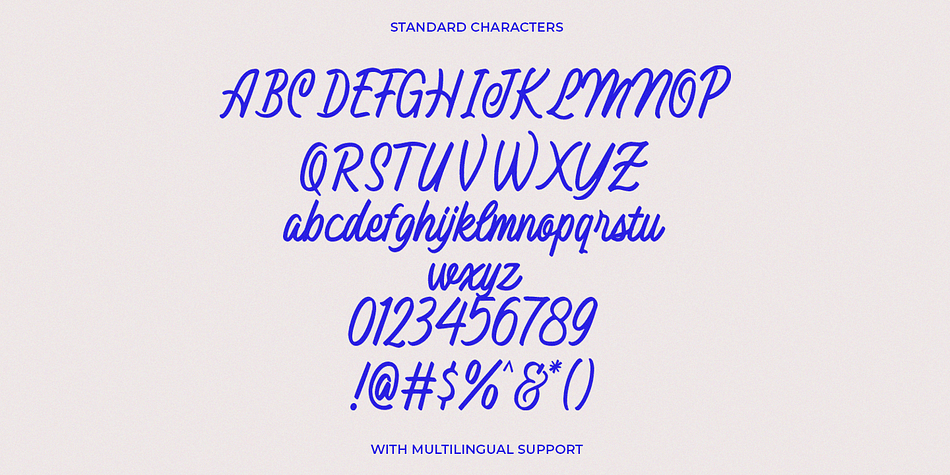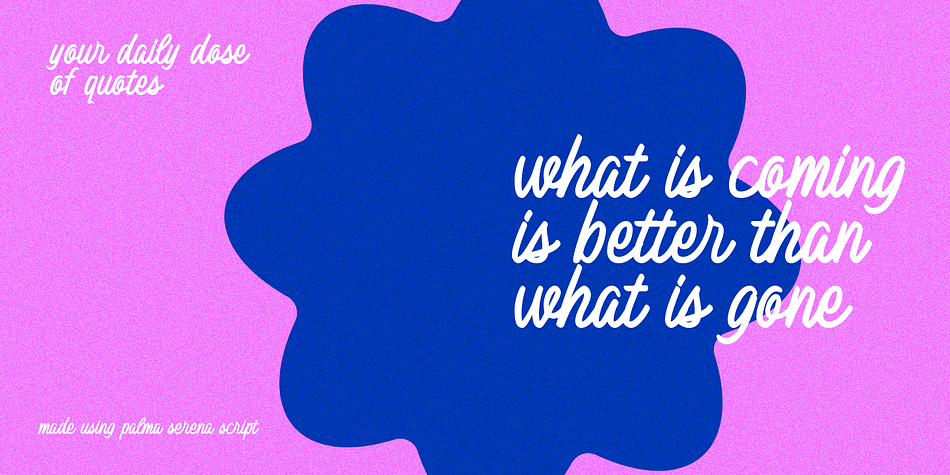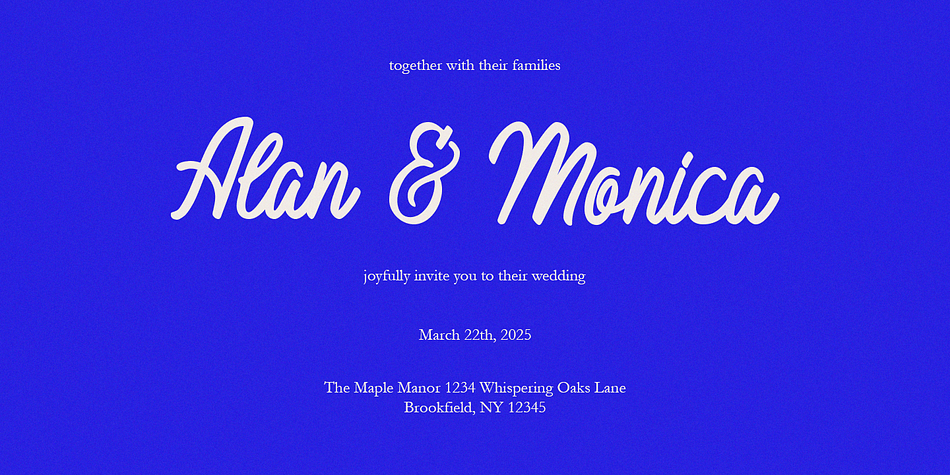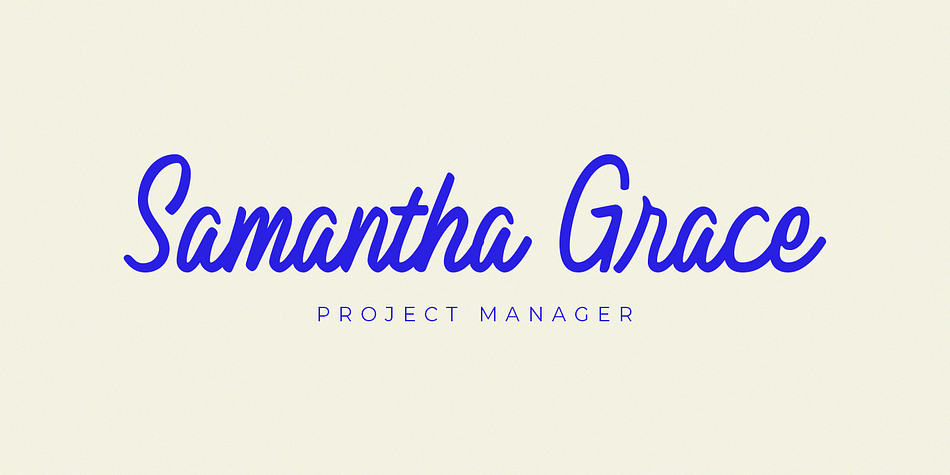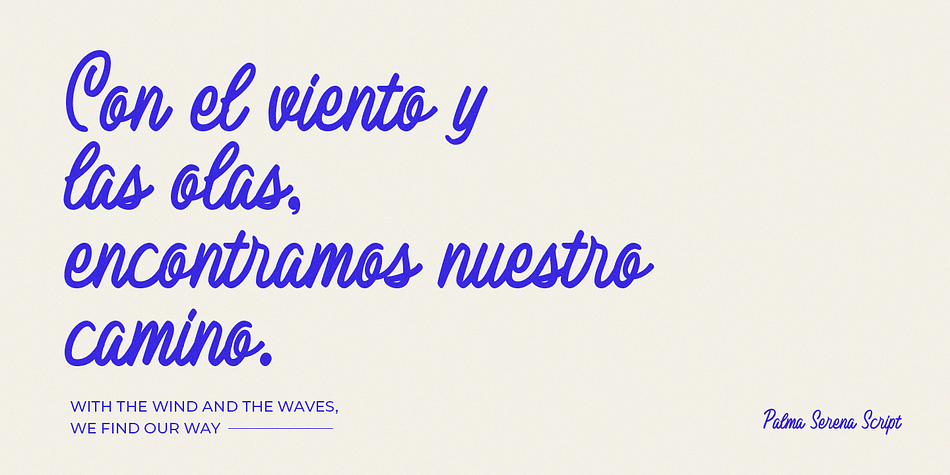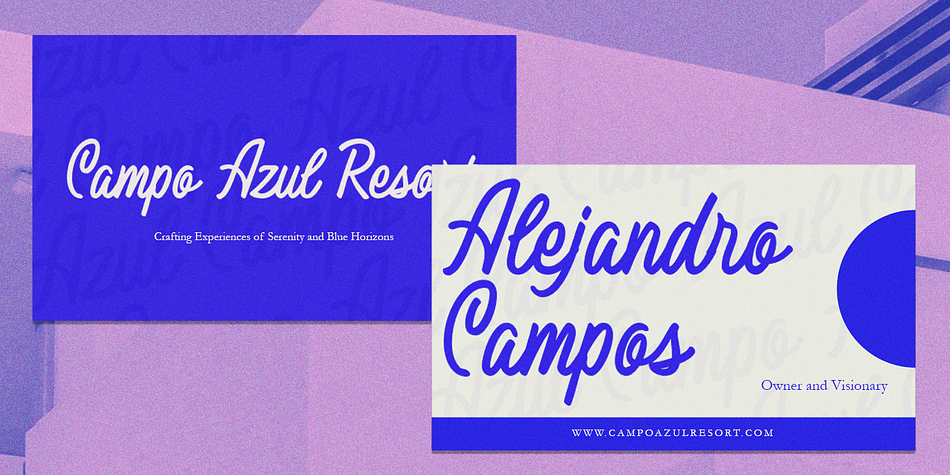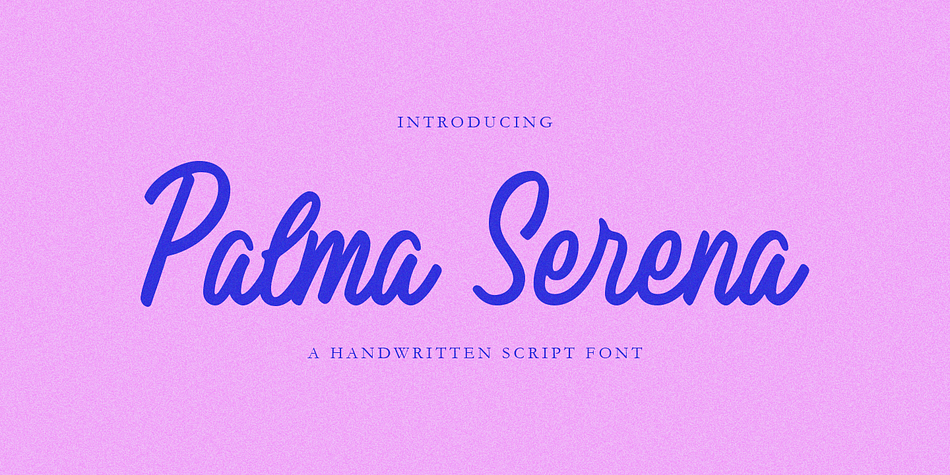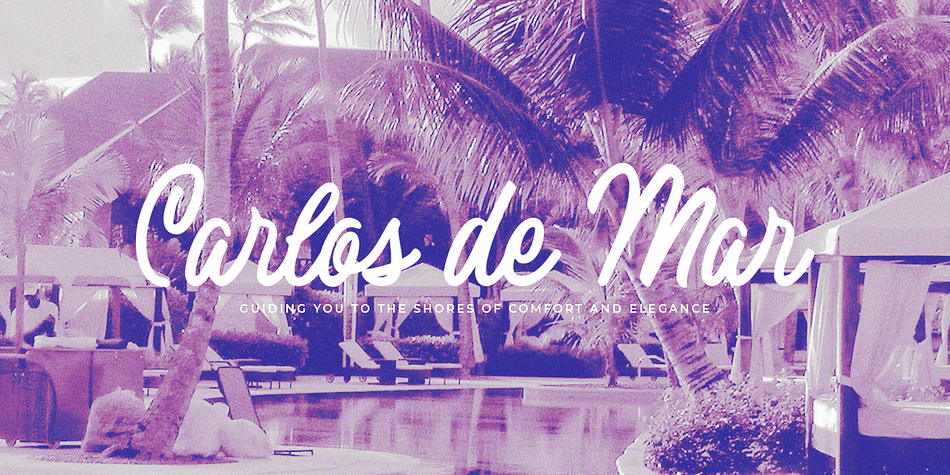
Palma Serena
Designed by Hendry Juanda, Palma Serena is a brush script font family published by Letterhend Studio.
Palma Serena is a handwritten script font that radiates elegance and warmth, making it ideal for creating timeless and personable designs. With its smooth curves and organic flow, this font is perfect for branding, invitations, greeting cards, logo designs, and more. Its delicate strokes give it a sophisticated yet approachable look,